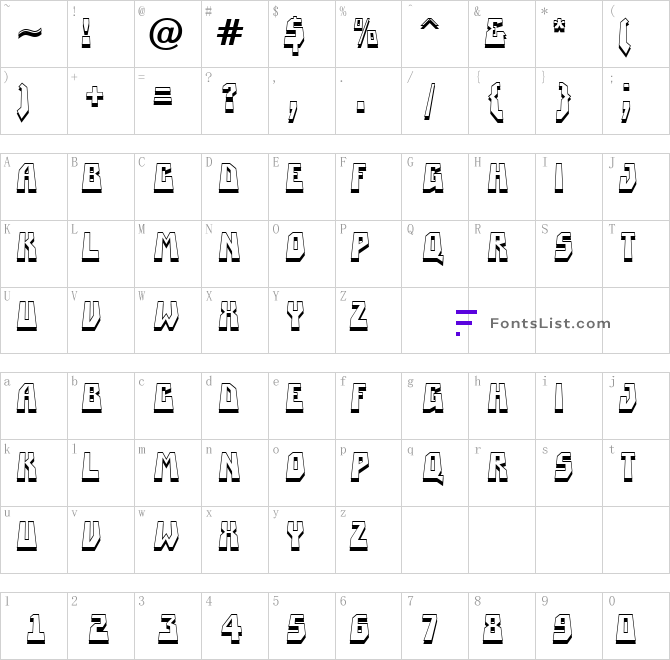
- Font Name:a_SimplerPrspSh
a_SimplerPrspSh.ttf is a very beautiful artistic font, a_SimplerPrspSh.ttf is widely used in the design and printing of various books and pictures,a_SimplerPrspSh.ttf has a strong visual impact,a_SimplerPrspSh.ttf is a commonly used font in newspapers, magazines and books, and is used in posters, e-commerce Poster design, store design, logo design, font design and other fields.a_SimplerPrspSh.